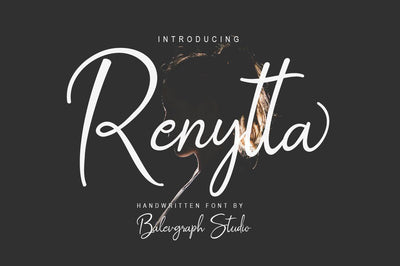
Renytta - Brush Handwritten Script Font
Renytta would perfect for photography, watermark, social media posts, advertisements, logos & branding, invitation, product designs, label, stationery, wedding designs, product packaging, special events or anything that need handwriting taste.
- Tons of glyphs (include Uppercase, Lowercase, Numerals & Punctuations, Stylistic Set)
- Ligature